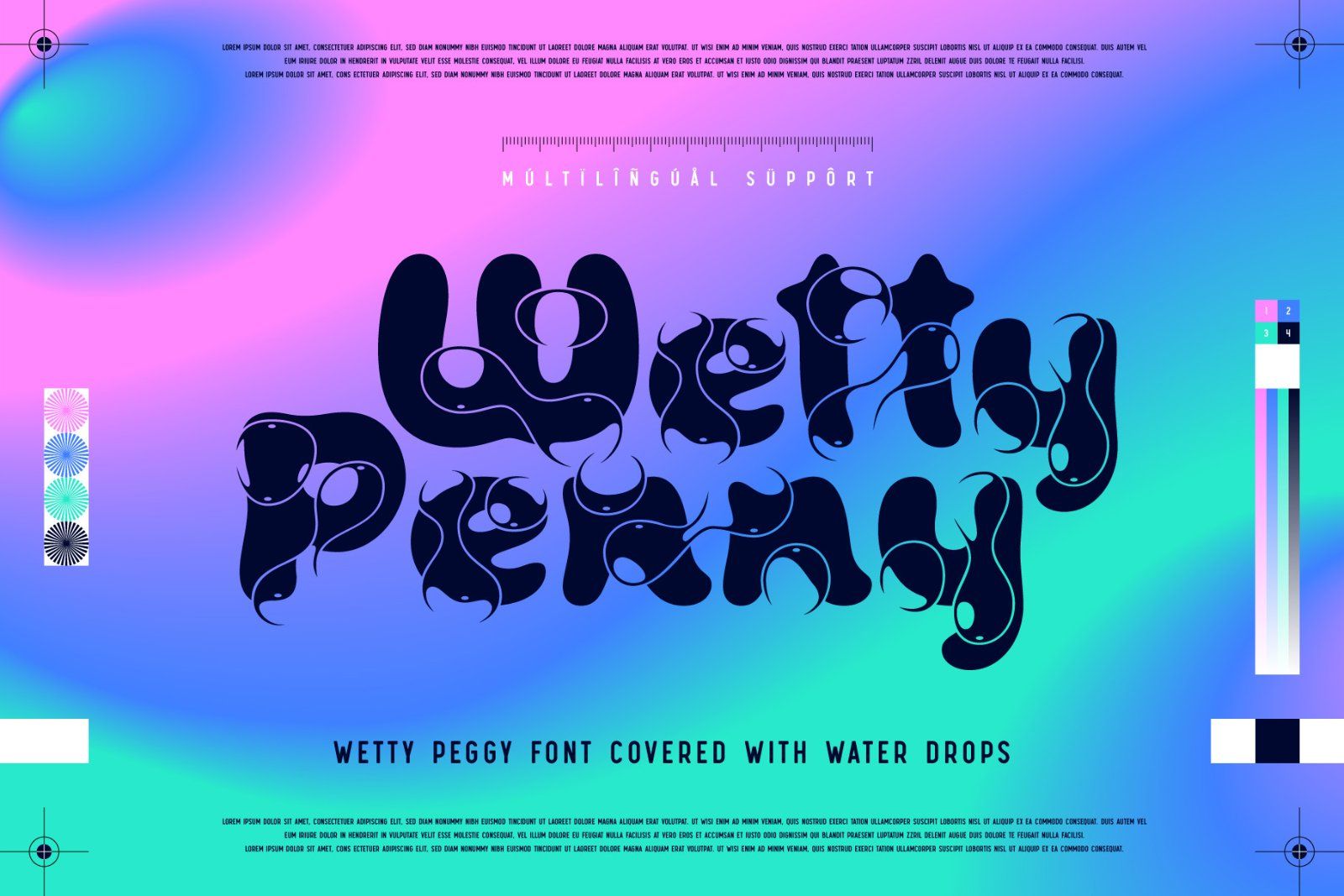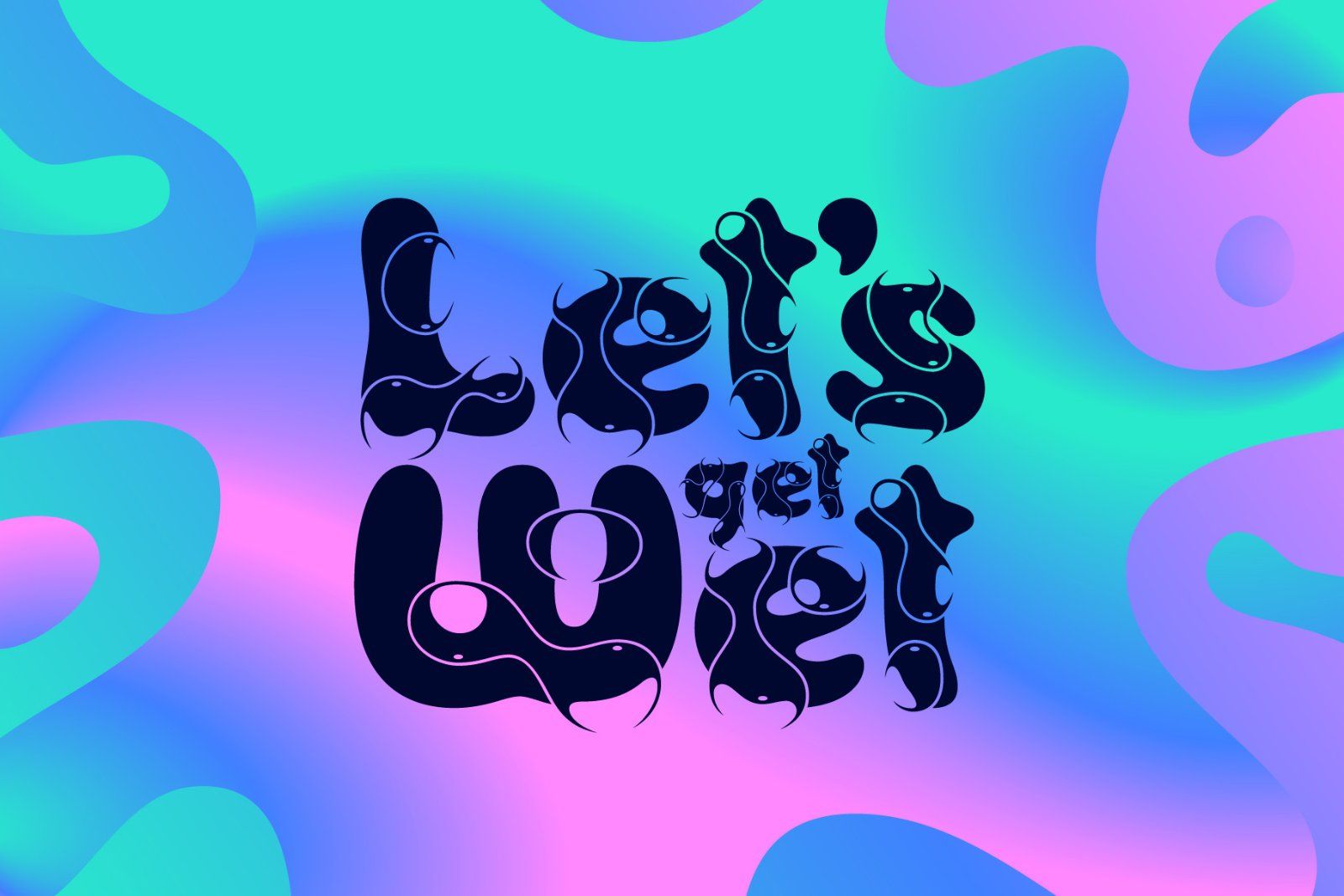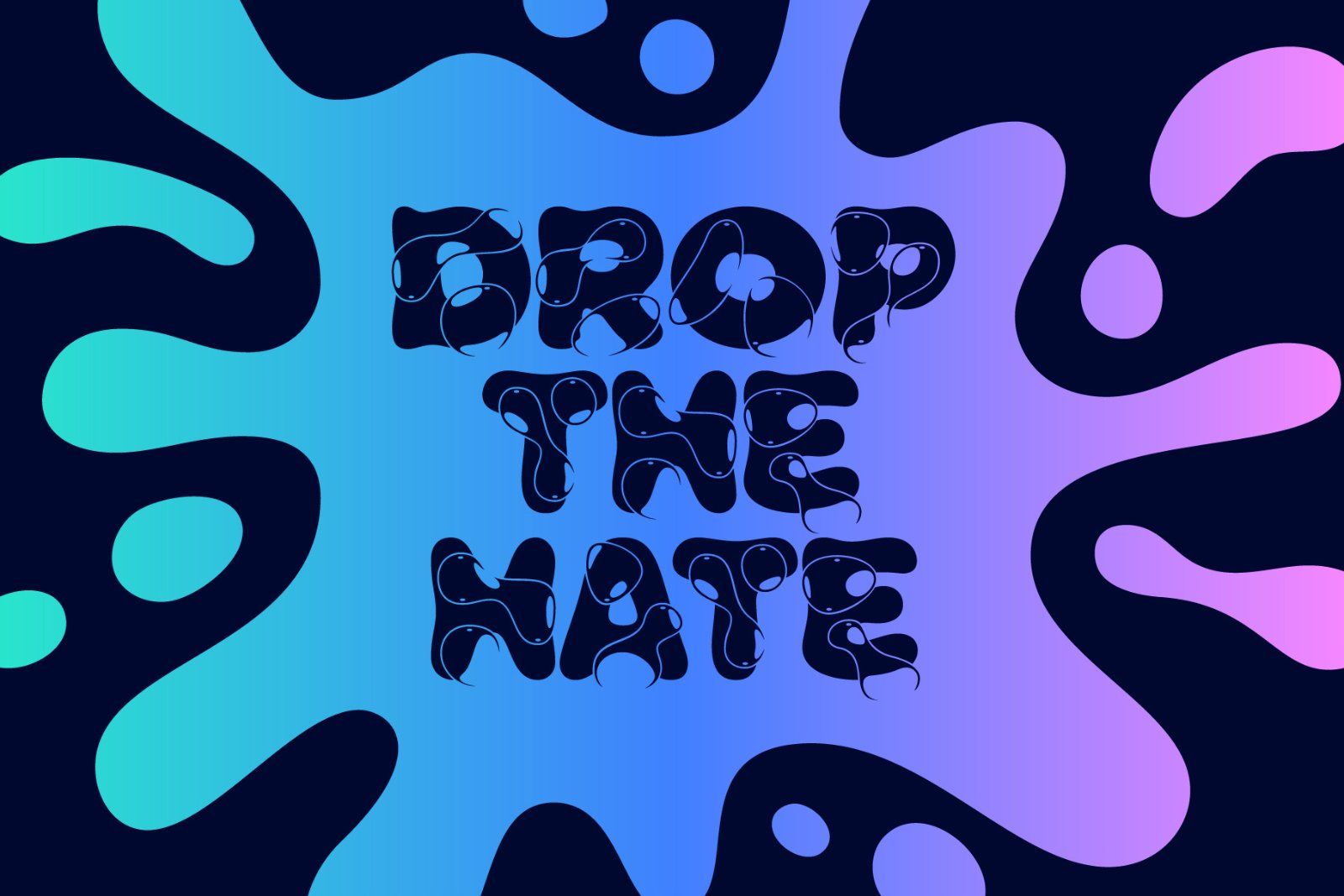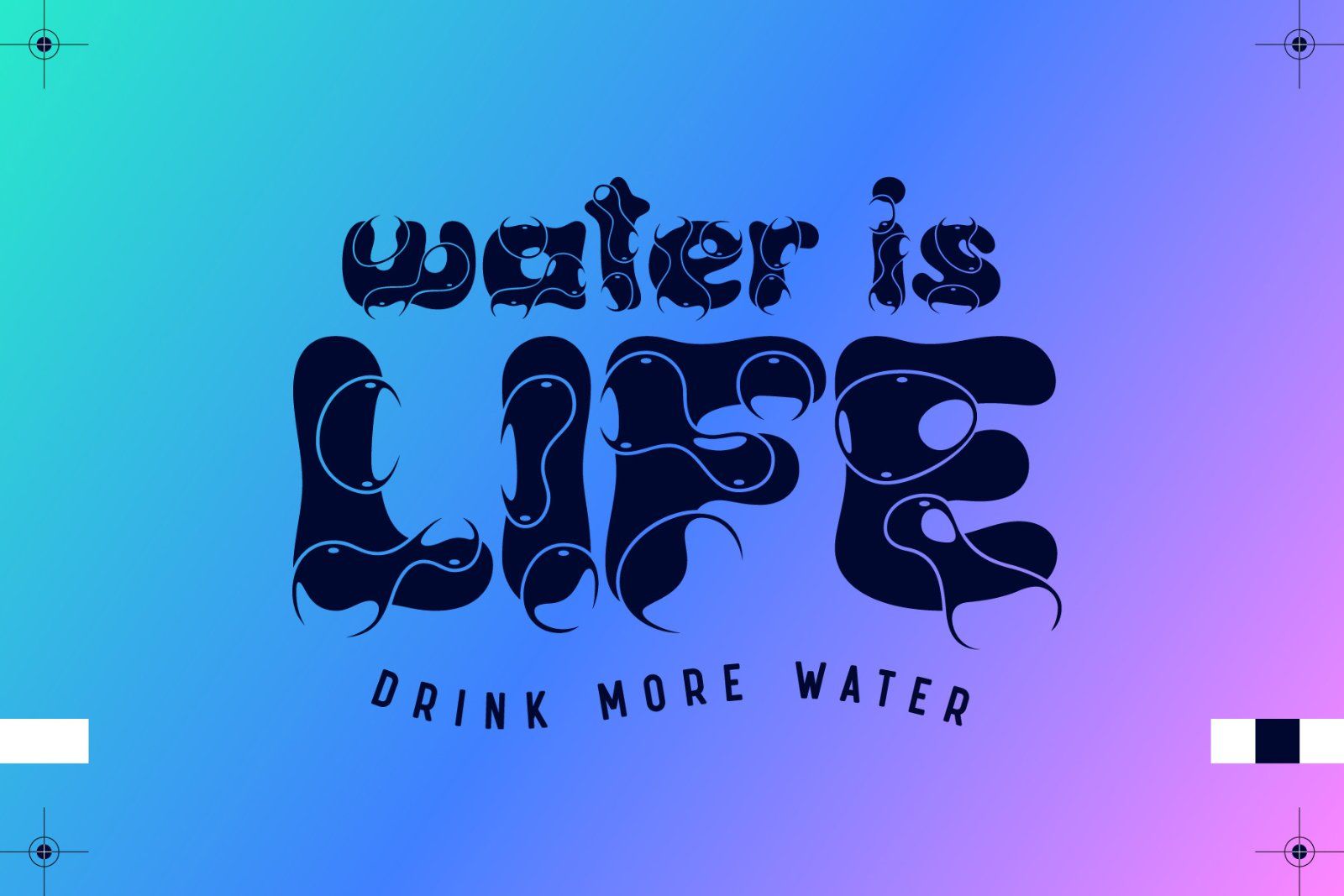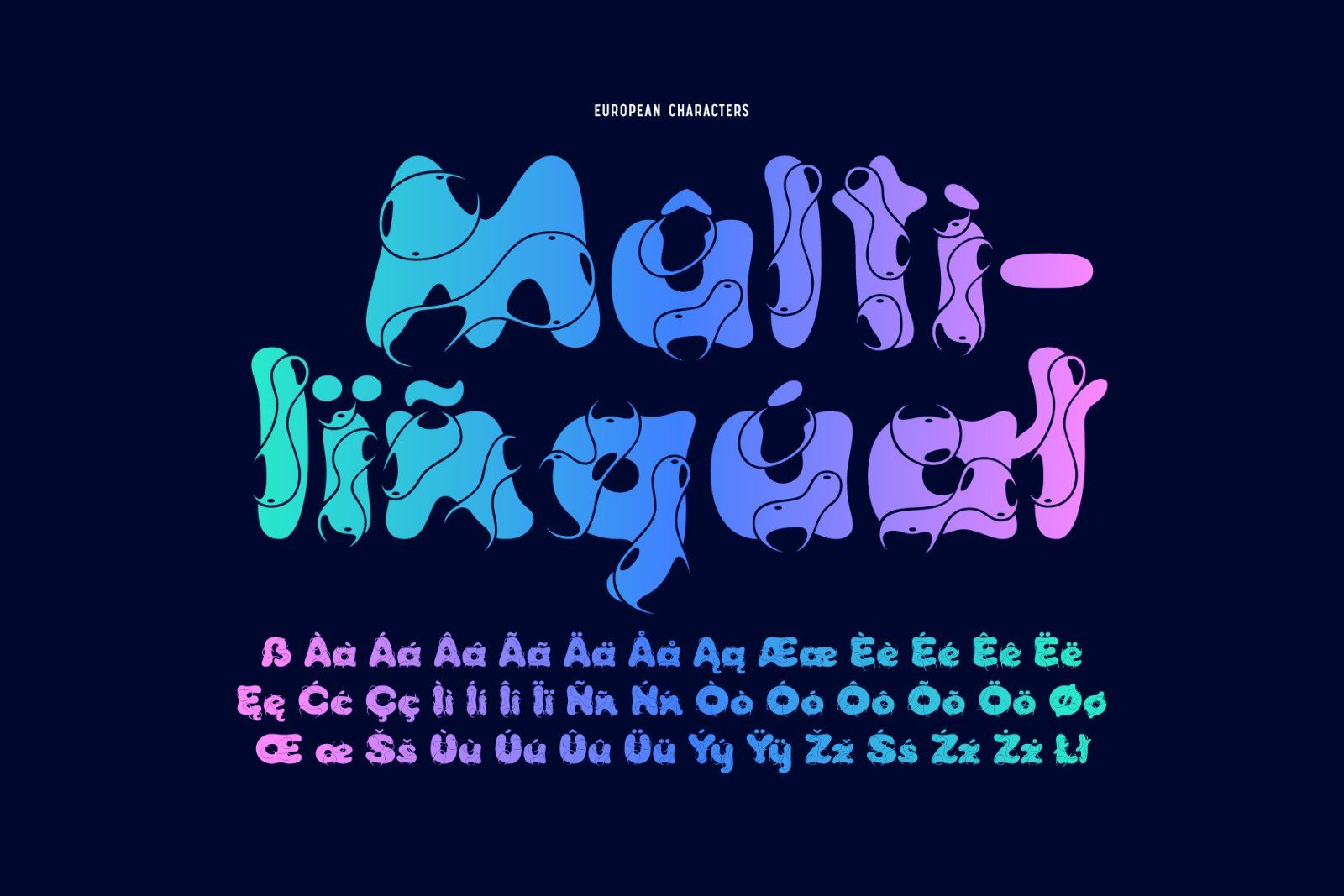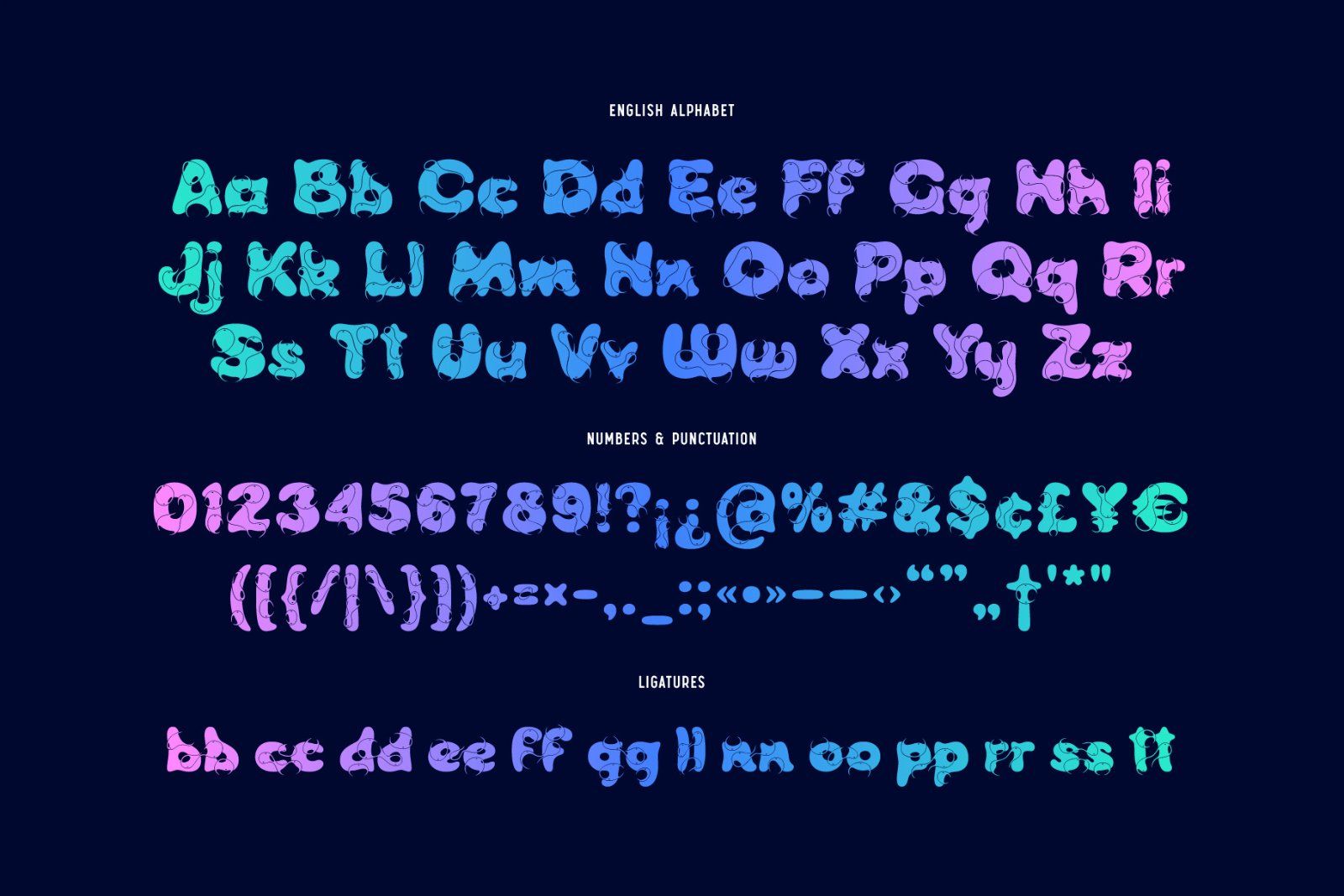
Hello! Introducing a decorative font — Wetty Penny. It's a smooth shape bold typeface with vector water drops effect. This font includes lots of multilingual characters (check out a screenshot with available letters and signs).